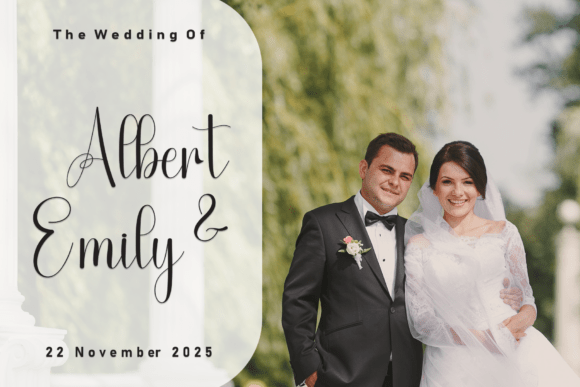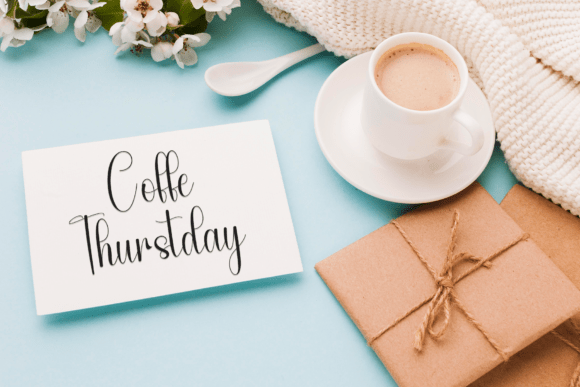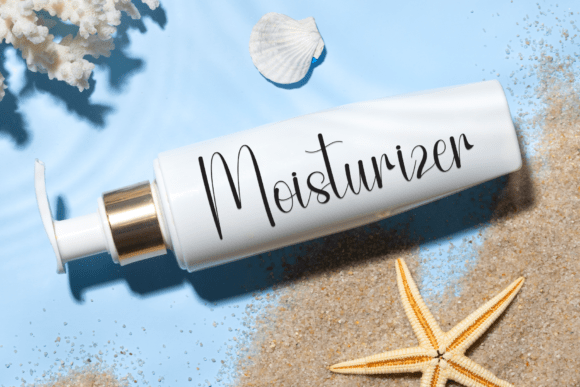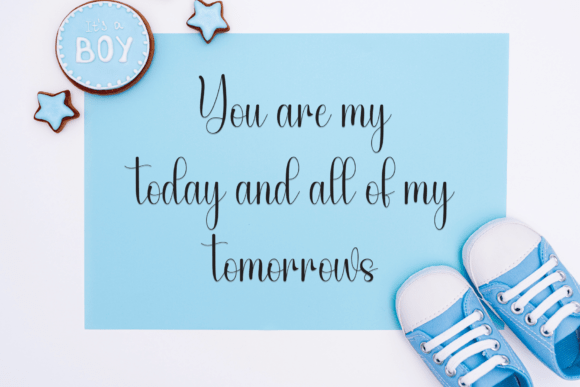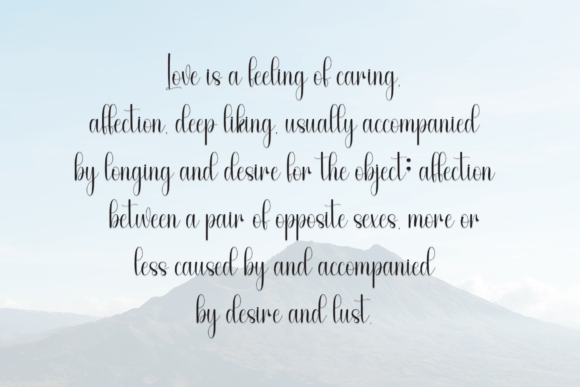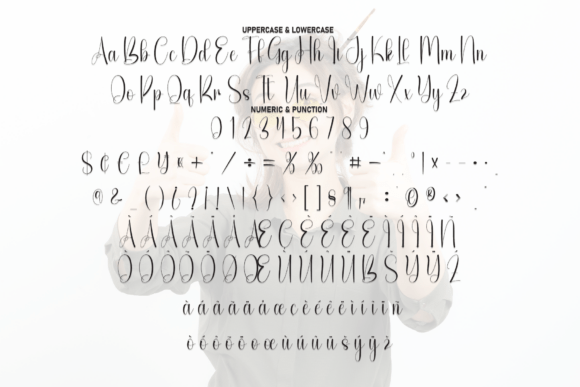
Introduction to Hey Stylish Font
Have you ever stared at a blank canvas, searching for the perfect font to bring your creative project to life? I know I have. Sometimes, it’s the smallest details that can make all the difference. For designers, finding the right font can be the key to unlocking a truly unique and captivating design.
That’s where the Hey Stylish Font comes in – a chic handwritten font with an artistic flair that’s sure to elevate any design. With its thin, elegant strokes and expressive curves, this font is perfect for branding, fashion quotes, social media graphics, logos, and anything that needs a dash of sophistication.
Whether you’re a seasoned designer or just starting out, the Hey Stylish Font is a valuable design resource that’s worth exploring. Plus, with its high-quality design and transparent background, it’s easy to use and customize to fit your needs – and the best part? It’s available for free download, making it an essential addition to any designer’s toolkit.
Key Features of Hey Stylish Font
- High-quality font with a unique, stylish design perfect for creative projects.
Honest Review: Hey Stylish Font
As a designer, I’m always on the lookout for unique and high-quality design resources. Hey Stylish Font is a font I recently discovered, and I’m excited to share my thoughts on it.
- ✨ The high quality of the font is immediately apparent, making it perfect for creative projects that require a polished look.
- ✨ The font has a transparent background, which makes it easy to use on any design project.
- ⚠️ The font is limited in its versatility, with only a few styles available.
- ⚠️ The font may not be suitable for use in complex or detailed designs, as it can appear a bit simplistic.
Overall, I would recommend Hey Stylish Font for designers who are looking for a simple and high-quality font for their creative projects. While it may have some limitations, its free availability and transparent background make it a valuable design resource.
Introduction to Hey Stylish Font
Hey Stylish Font is a high-quality, free download design resource perfect for creative projects. With a transparent background, it offers endless possibilities for customization and design versatility.
Common Use Cases for Hey Stylish Font
Hey Stylish Font is perfect for a variety of creative projects, including: